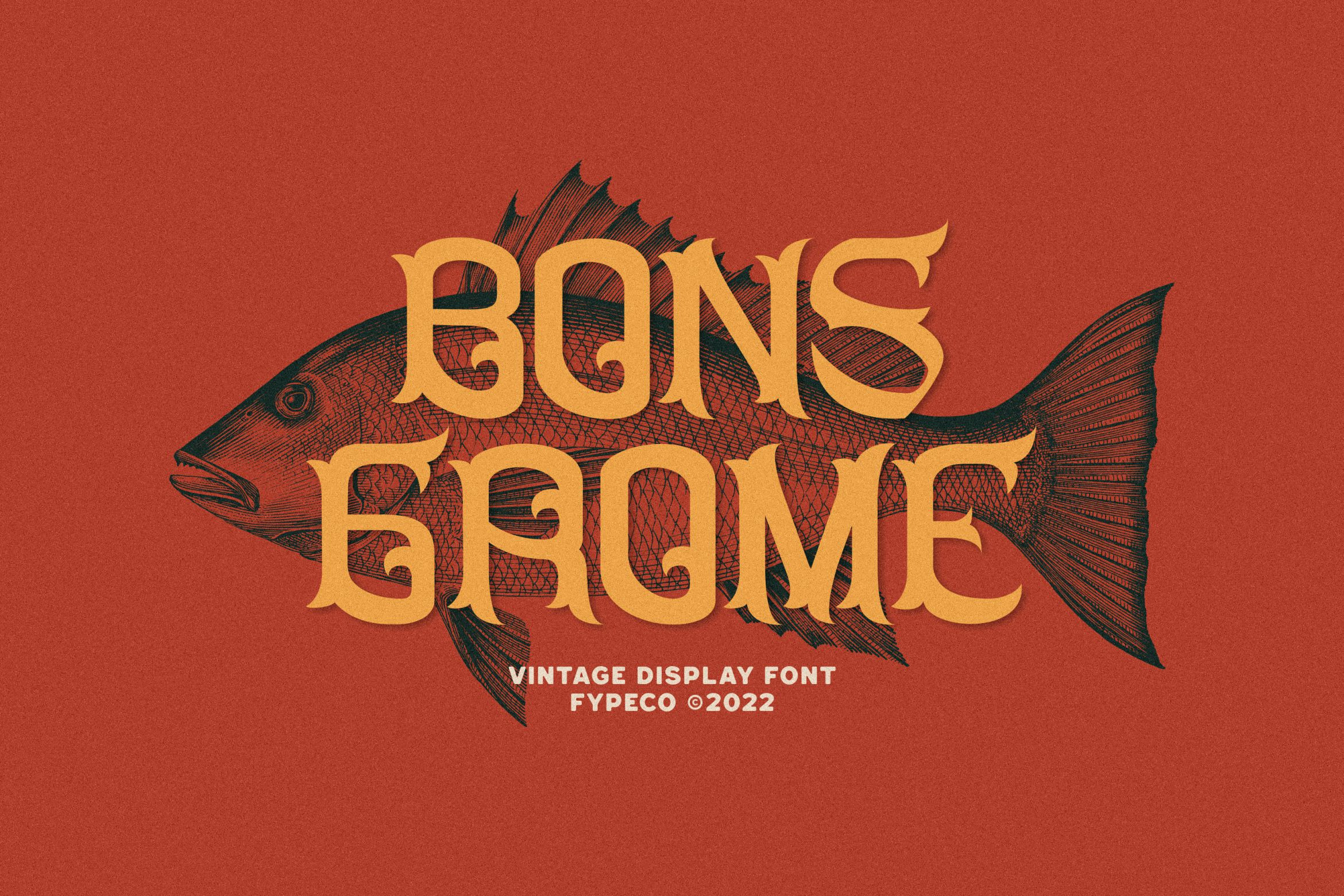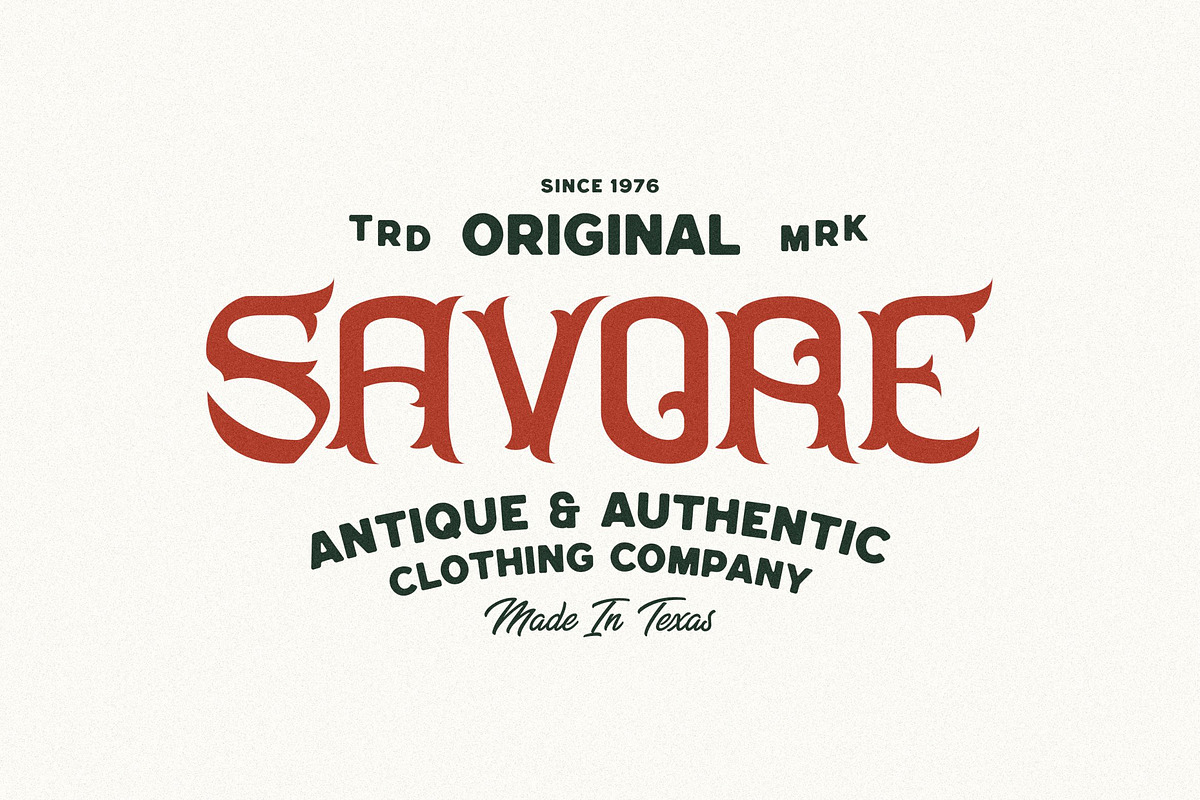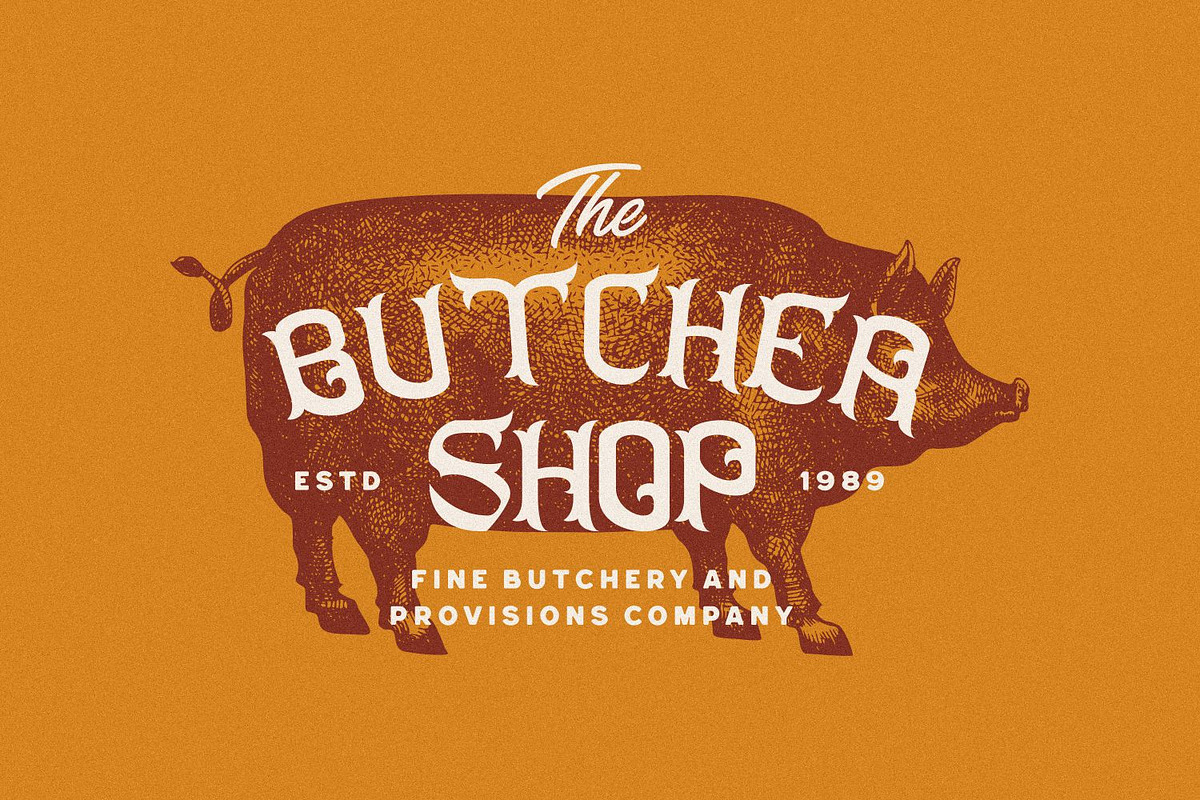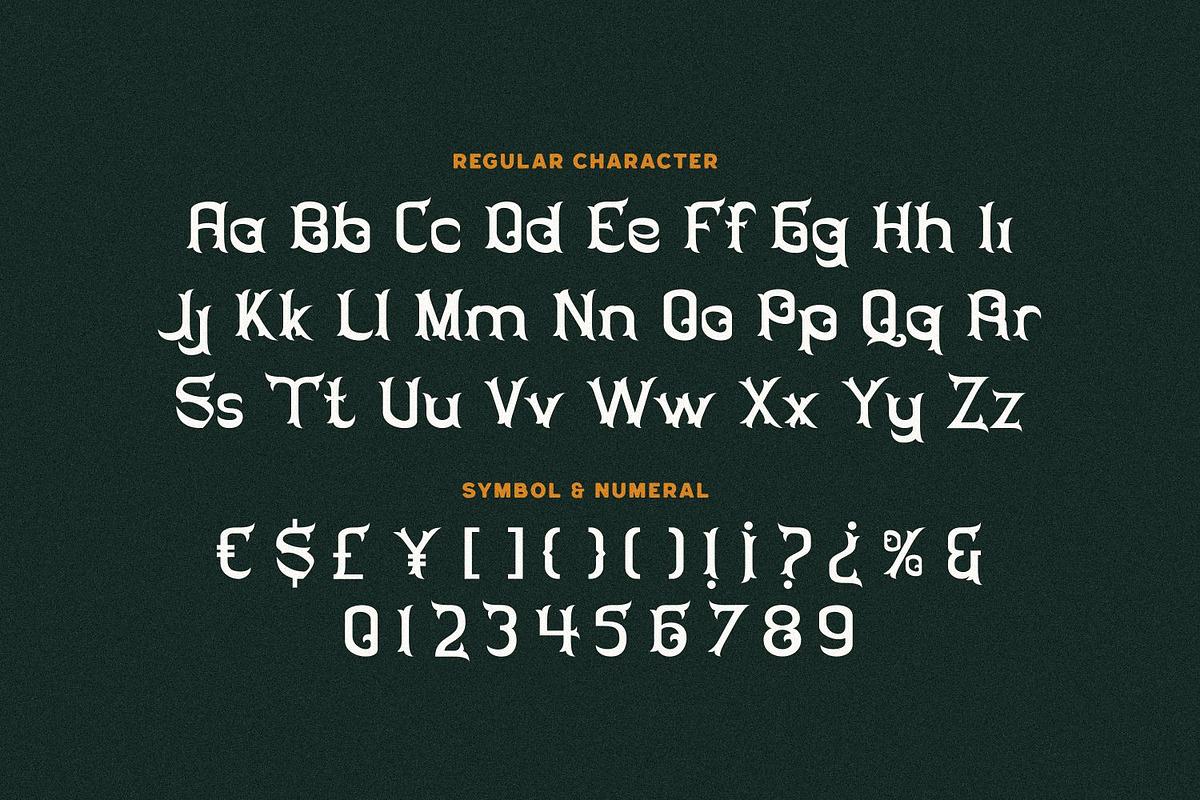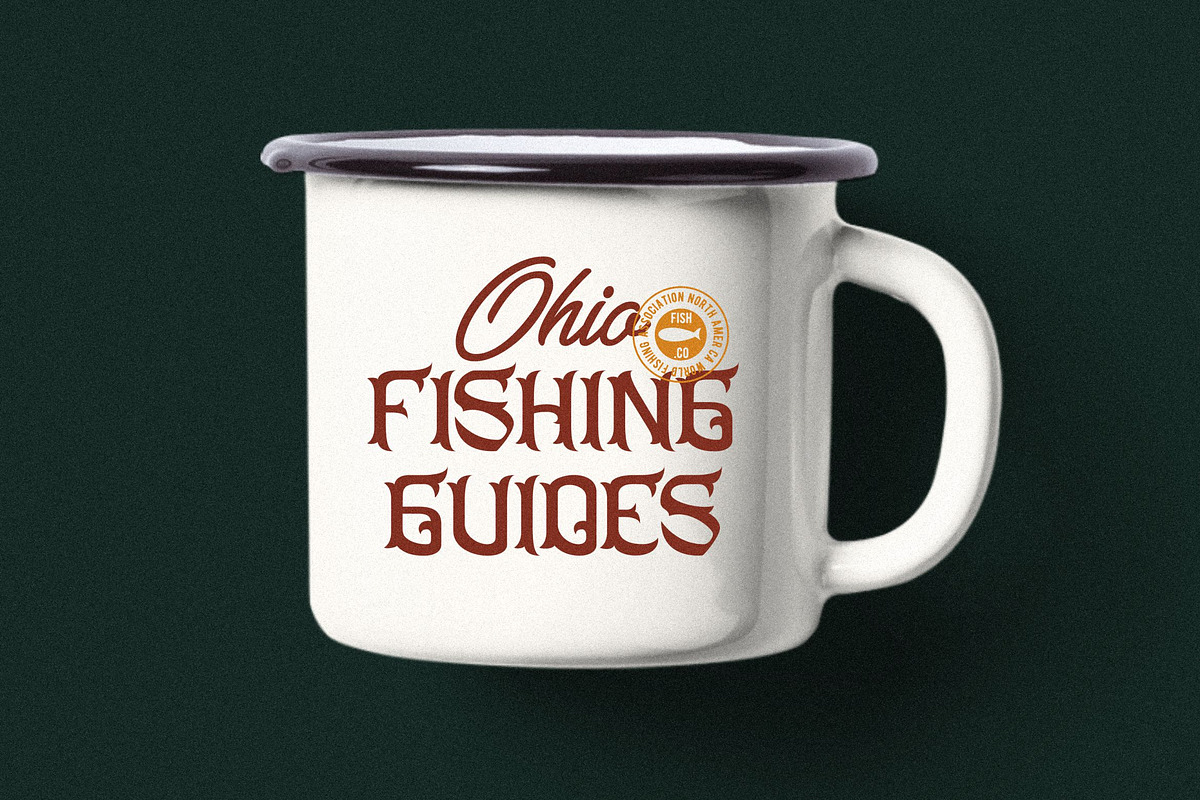
Bons Grome - Vintage Display Font
Bons Grome is a vintage display font with handmade style. This font that would be perfect to combine in your design, especially on vintage design.